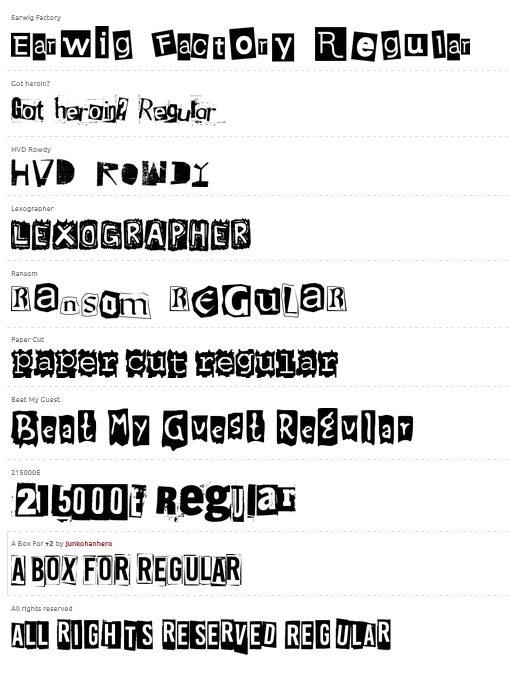
Seeking Ransom / Extortion letter fonts
I am on the hunt for some grungy, vintage style ransom / extortion letter fonts for a poster I'm doing.
Has anyone come across anything similar on Adobe Fonts?
I'm actually in the same boat! Have you had any luck?